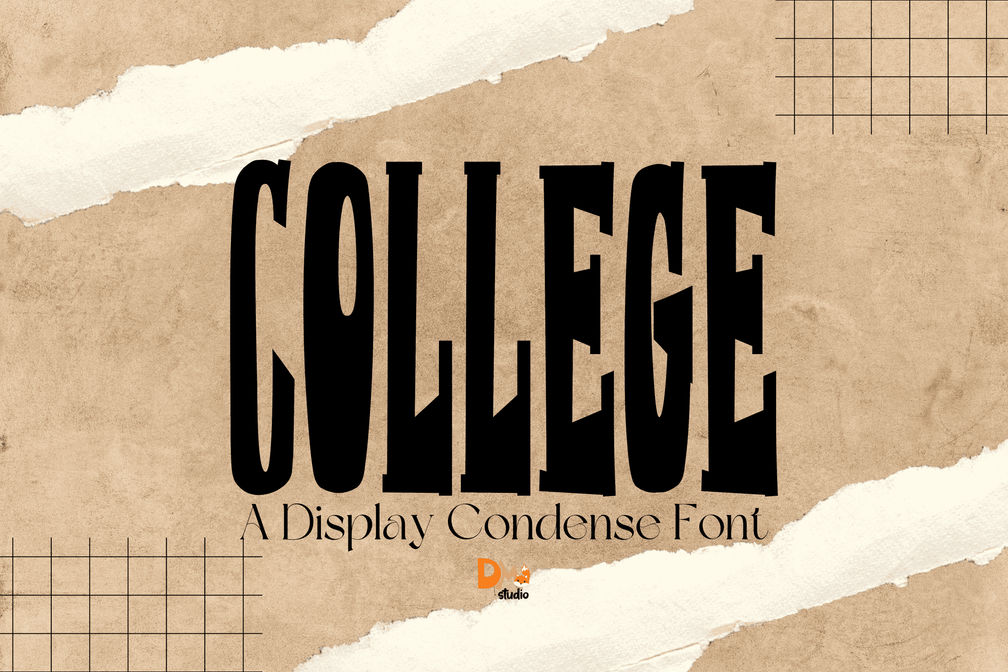
Condense College
Condense College – Bold & Compact Collegiate Font
Condense College is a strong and compact display font inspired by classic varsity and collegiate typography. Designed with a condensed structure, this font is perfect for sports branding, team jerseys, academic posters, merchandise, and bold statement designs. Its structured letterforms and confident aesthetic make it ideal for impactful typography.
• Compact & Bold Collegiate Design: A condensed varsity-style font with a strong and professional look.
• Perfect for Sports & Academic Themes: Ideal for team logos, banners, school branding, and merchandise.
• Clean & Structured Aesthetic: Ensures readability while maintaining a powerful presence.